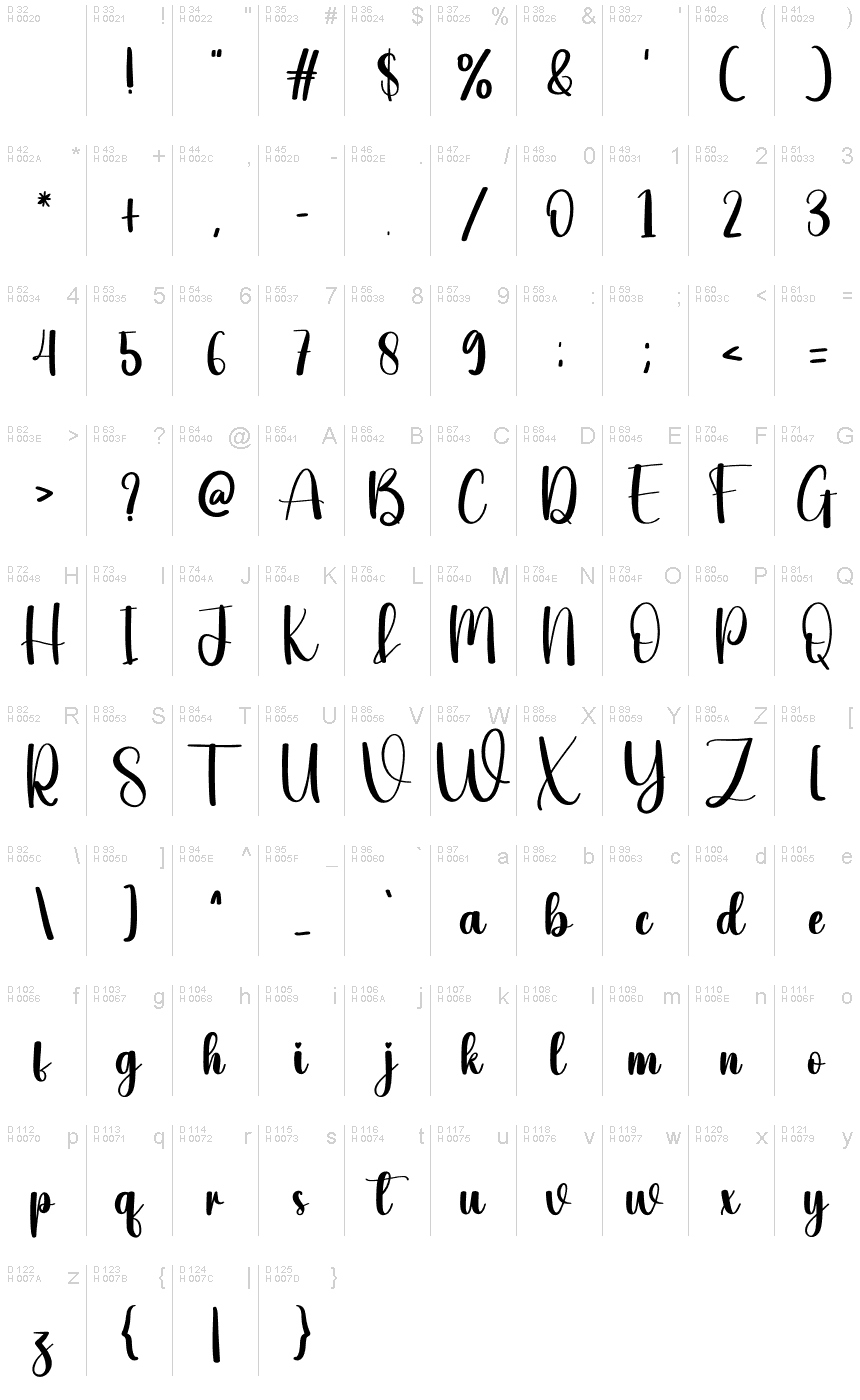
Heavy
Heavy, designed by Scratchones, is a semi-condensed handwritten font that brings a touch of personality and warmth to any project. With its bold strokes and slightly narrowed width, this typeface exudes a confident charm while maintaining readability. The handwritten style of Heavy provides an organic, approachable feel that stands out in both digital and print mediums.
The aesthetic appeal of Heavy lies in its balance between casual flair and structured elegance, making it an excellent choice for branding, editorial design, or any creative endeavor that requires a personal touch. Its semi-condensed form factor allows for efficient use of space without compromising on impact, perfect for headlines or callouts where space is at a premium but expression is key.
Embrace the unique character of Heavy in your next design project to convey messages with both visual interest and emotional resonance.